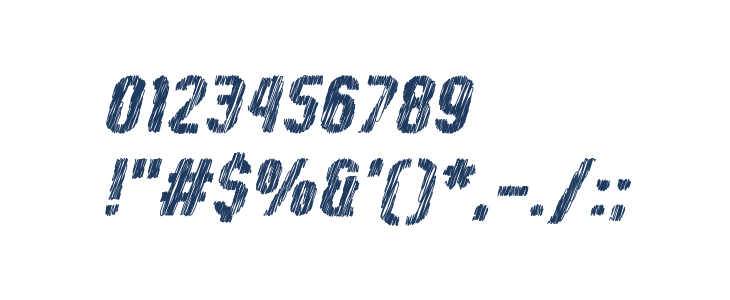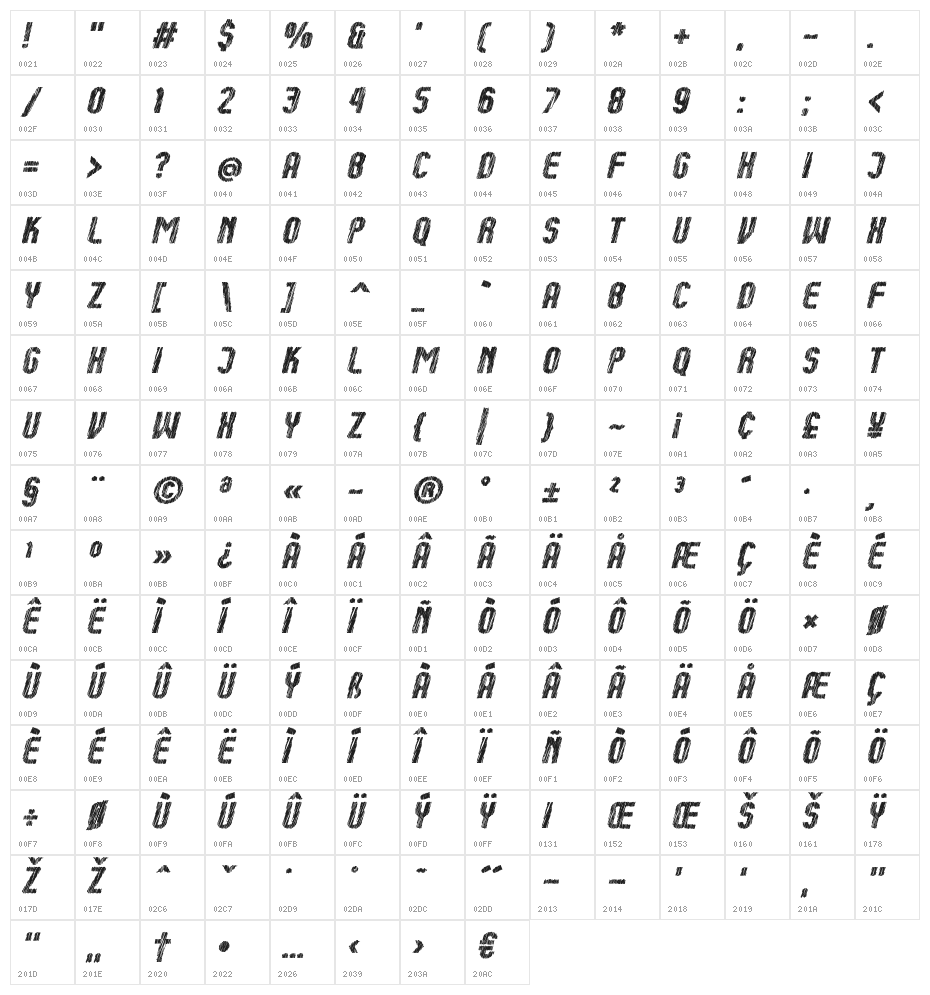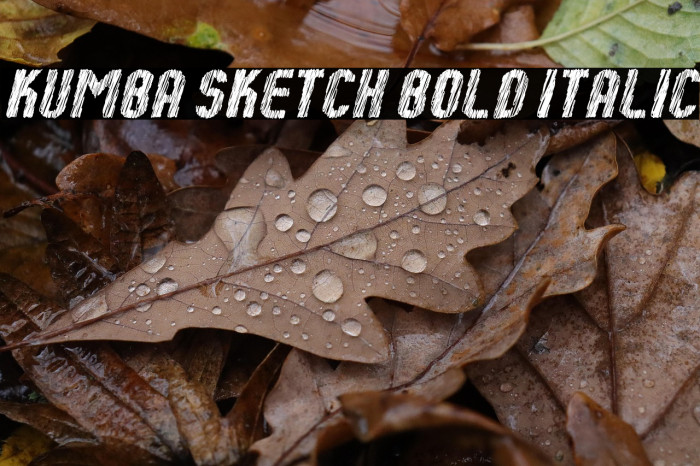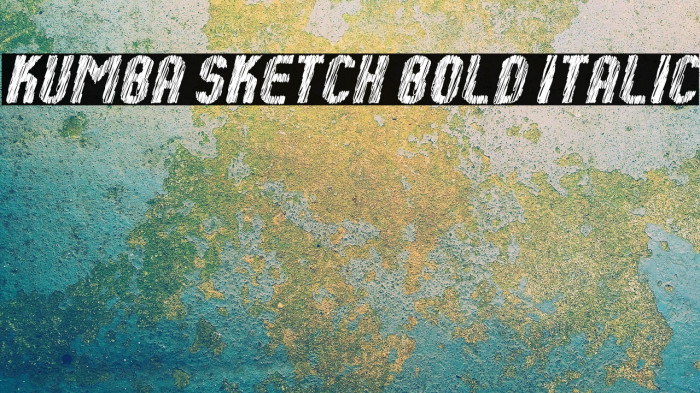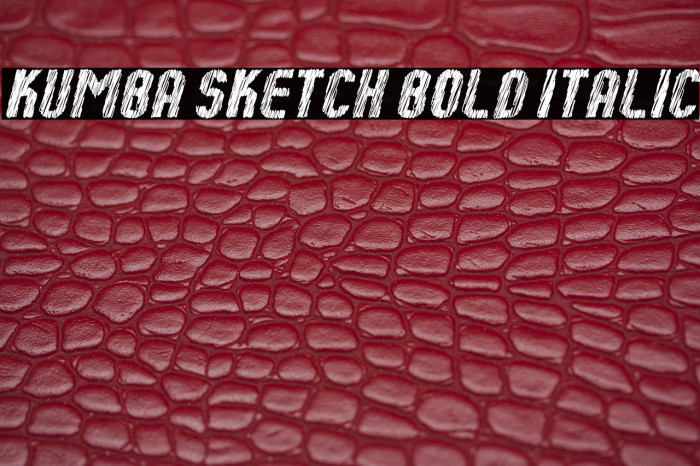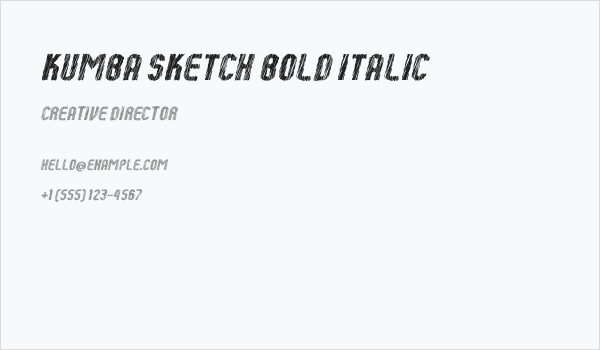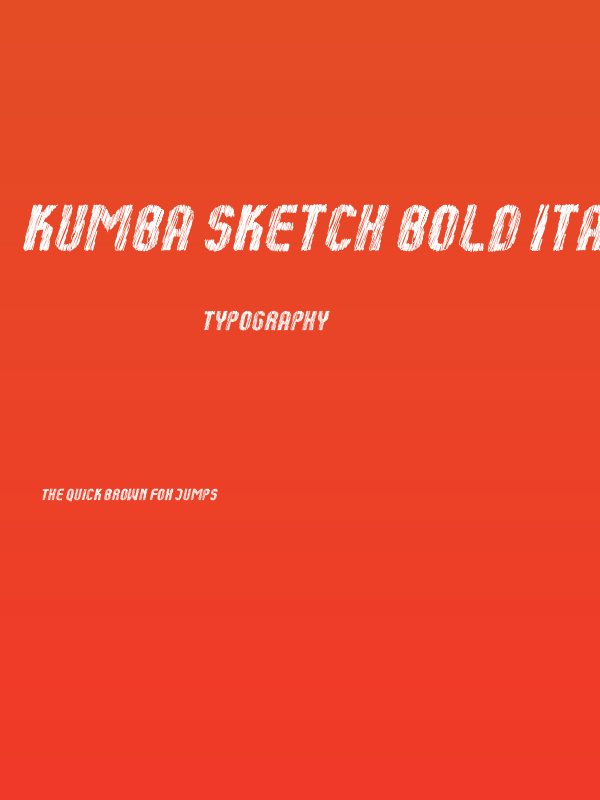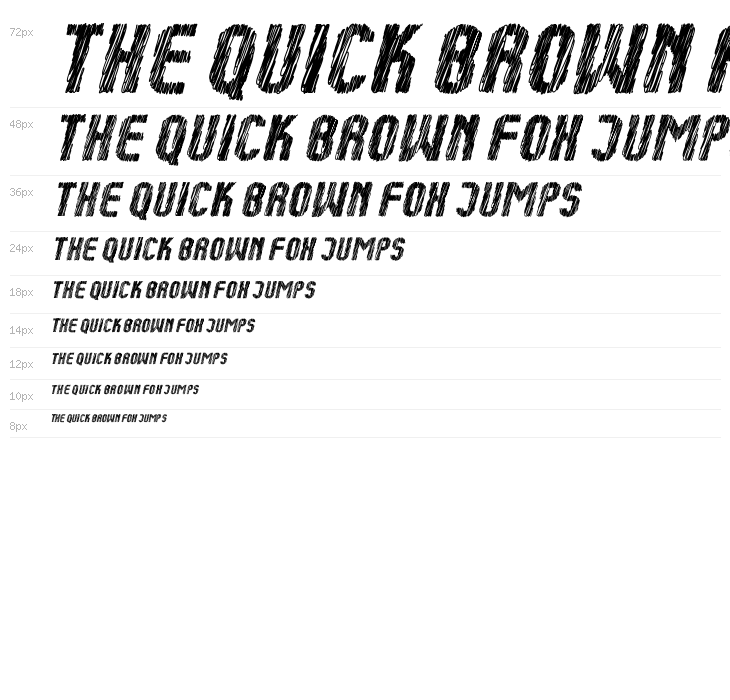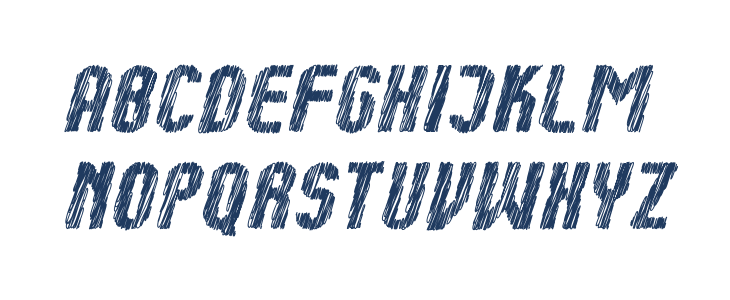
Kumba Sketch Bold Italic Font
Kumba Sketch Bold Italic Description
This font features a bold and dynamic sketch-like appearance, characterized by its slanted, italicized style. The strokes are thick and textured, giving each character a hand-drawn, artistic feel. The uppercase and lowercase letters maintain a consistent slant, enhancing the font's energetic and informal vibe. Numbers and special characters are crafted with the same bold, sketchy texture, ensuring a cohesive look across all elements. This font's unique style makes it stand out, perfect for projects that require a creative and expressive touch.
| Use Case | Headlines, Logos, Artistic projects |
| Proposed Projects | Ideal for creative projects such as posters, album covers, and artistic branding materials. |